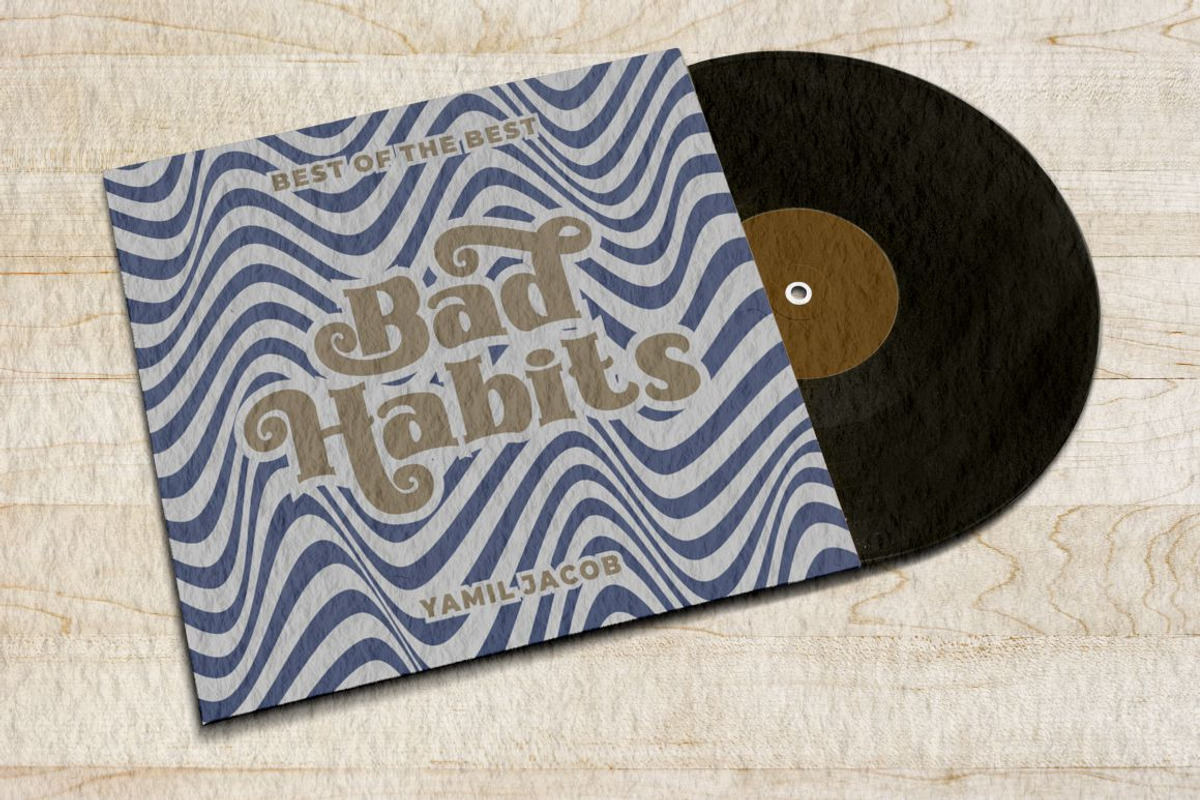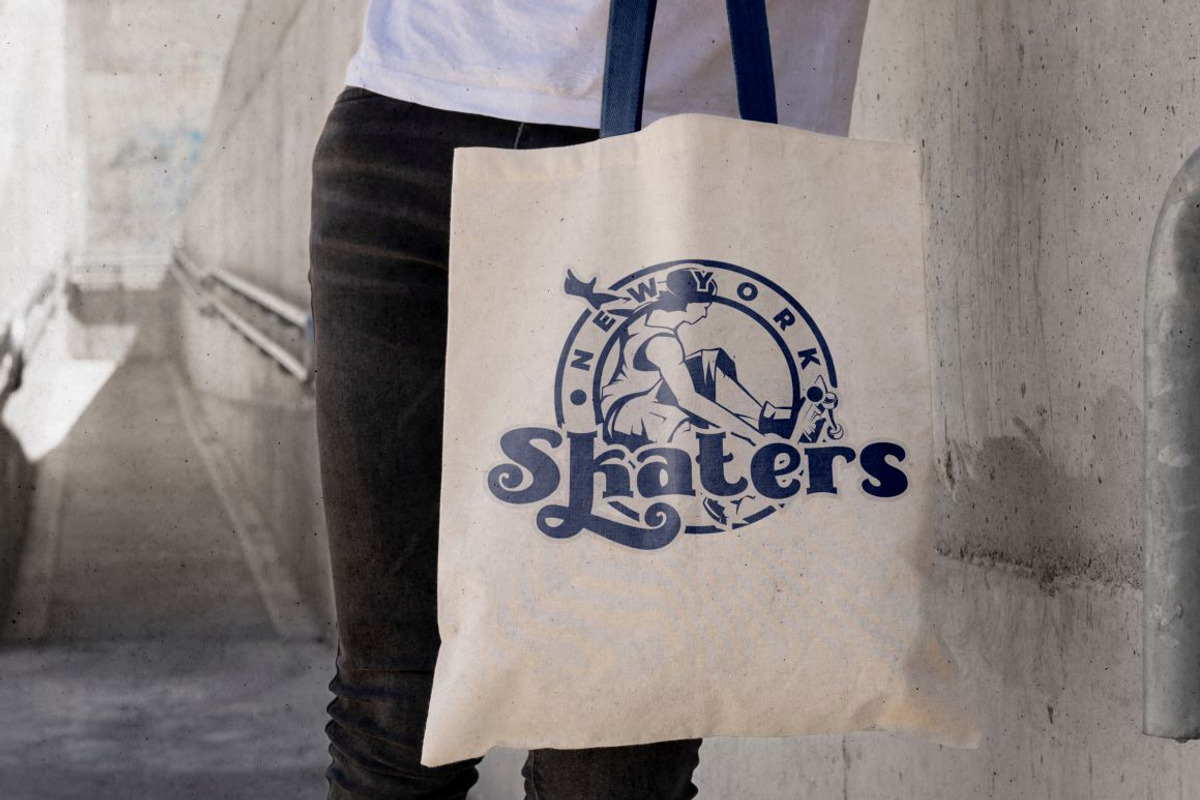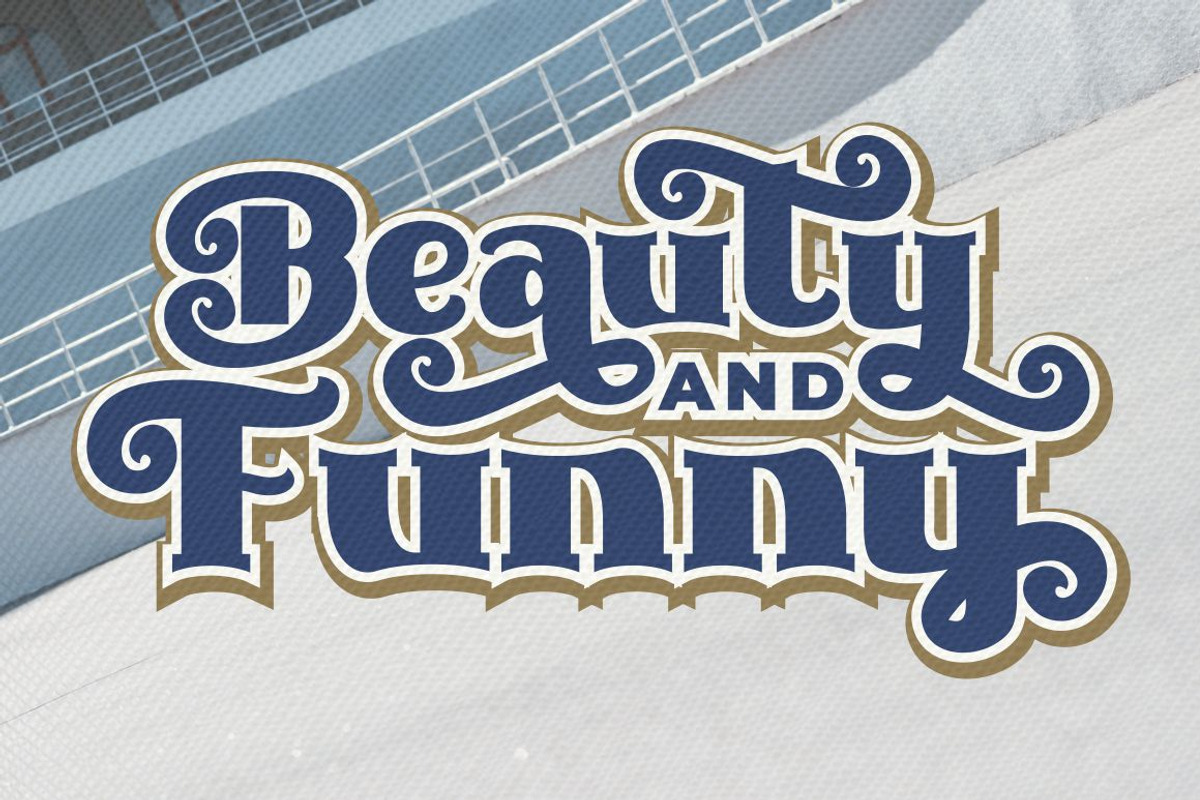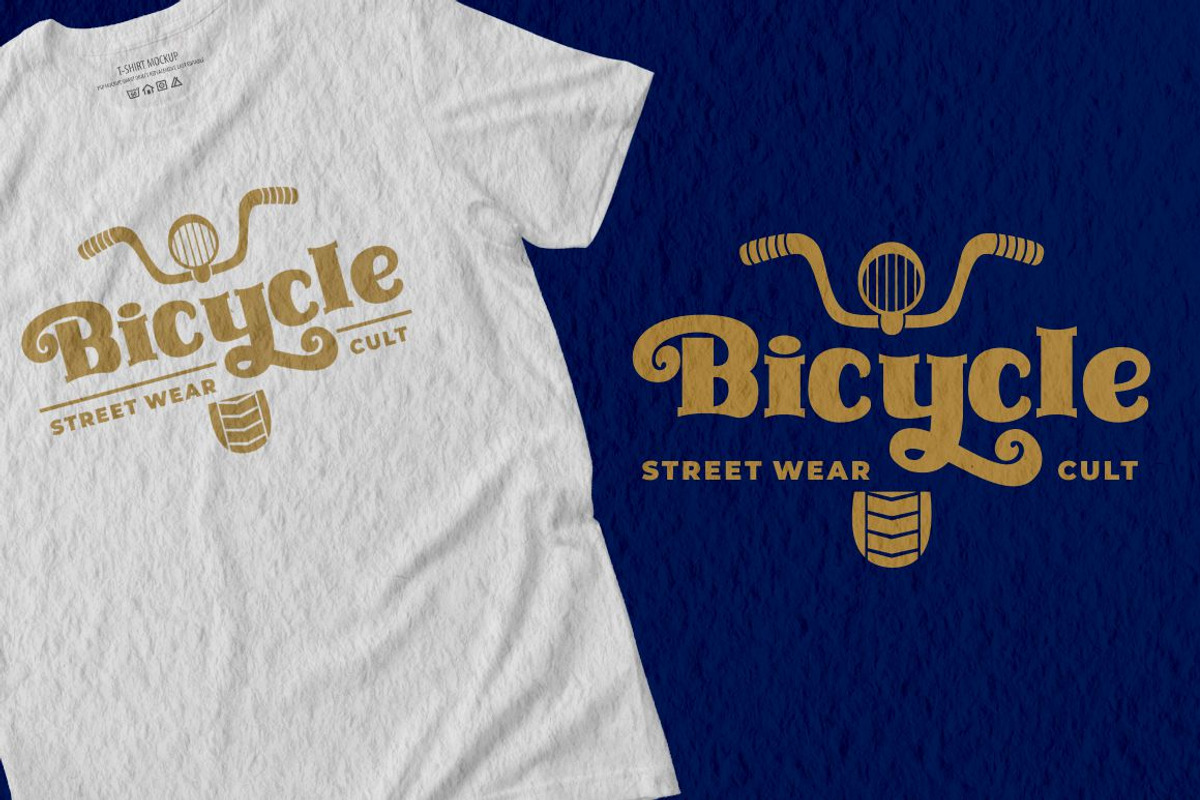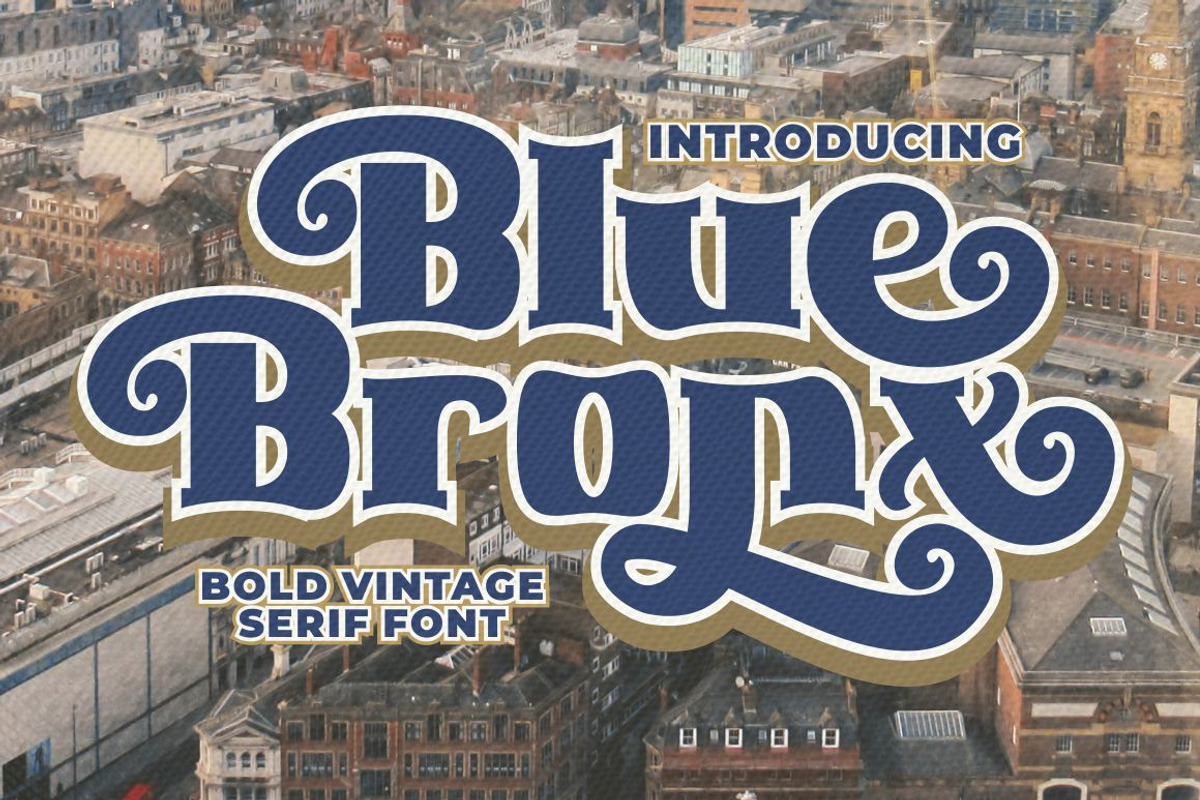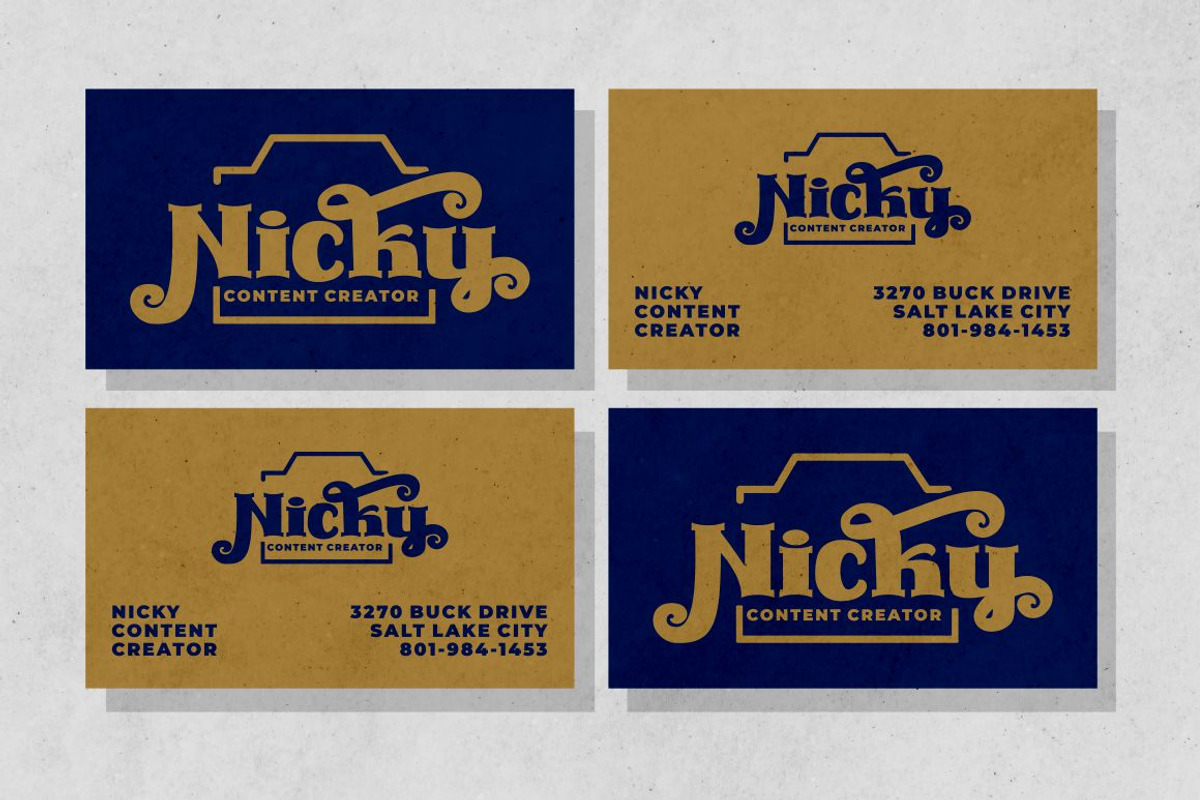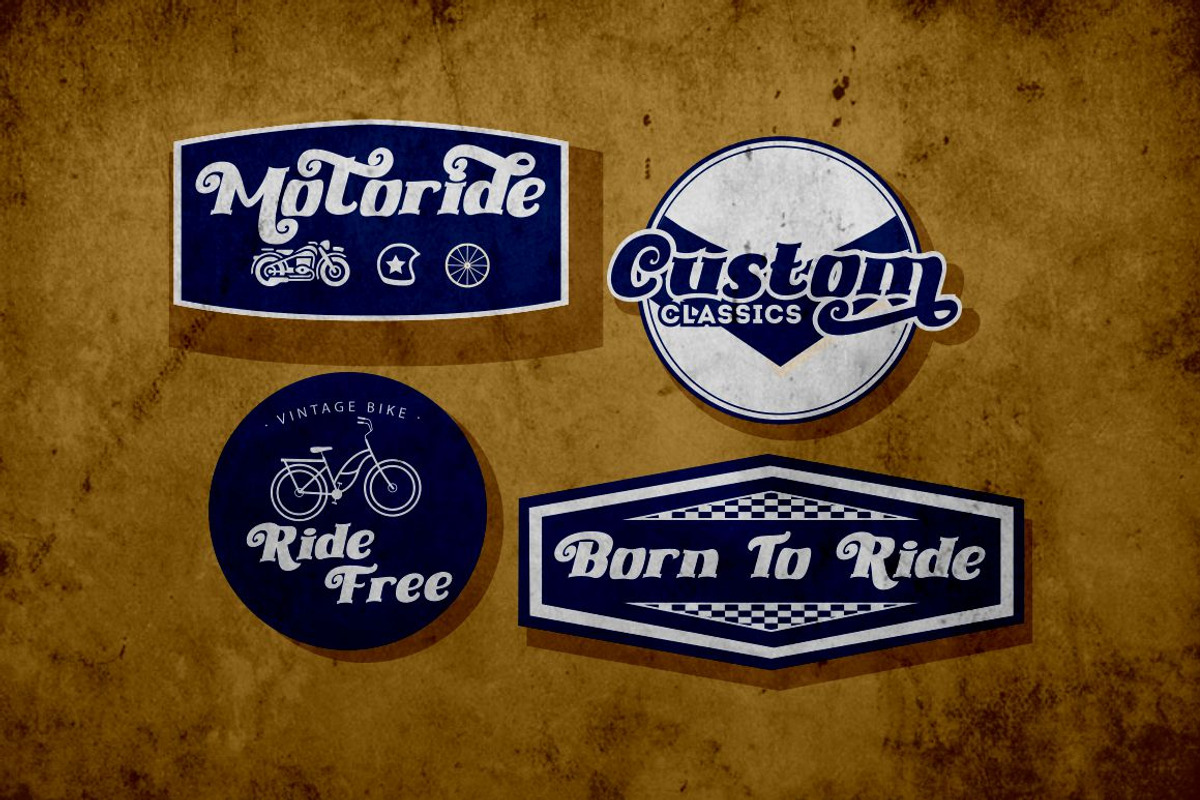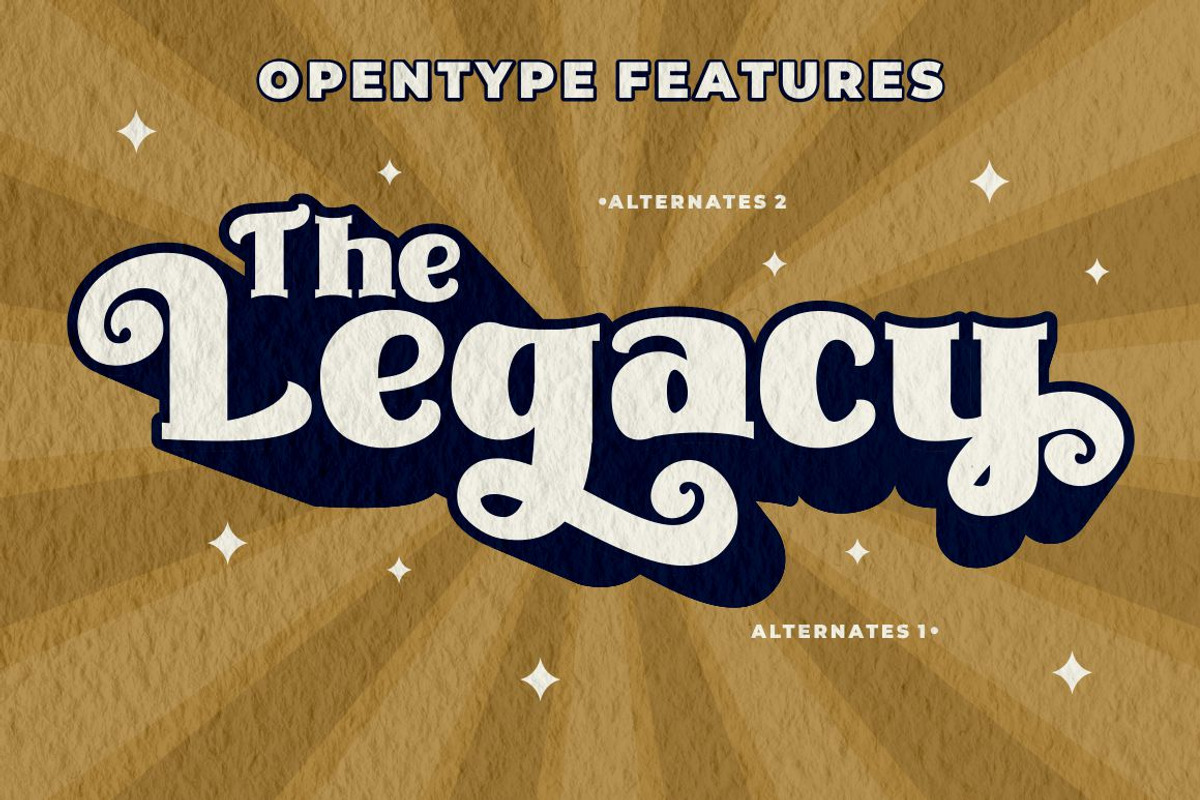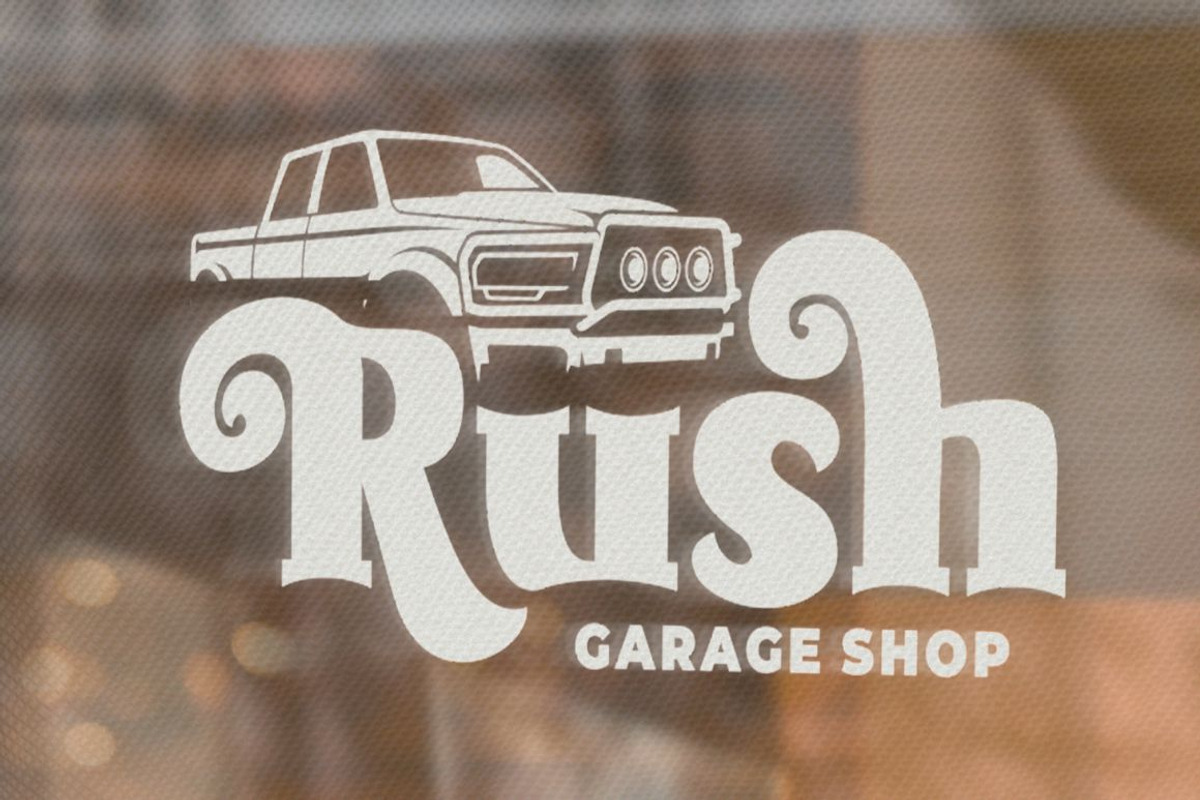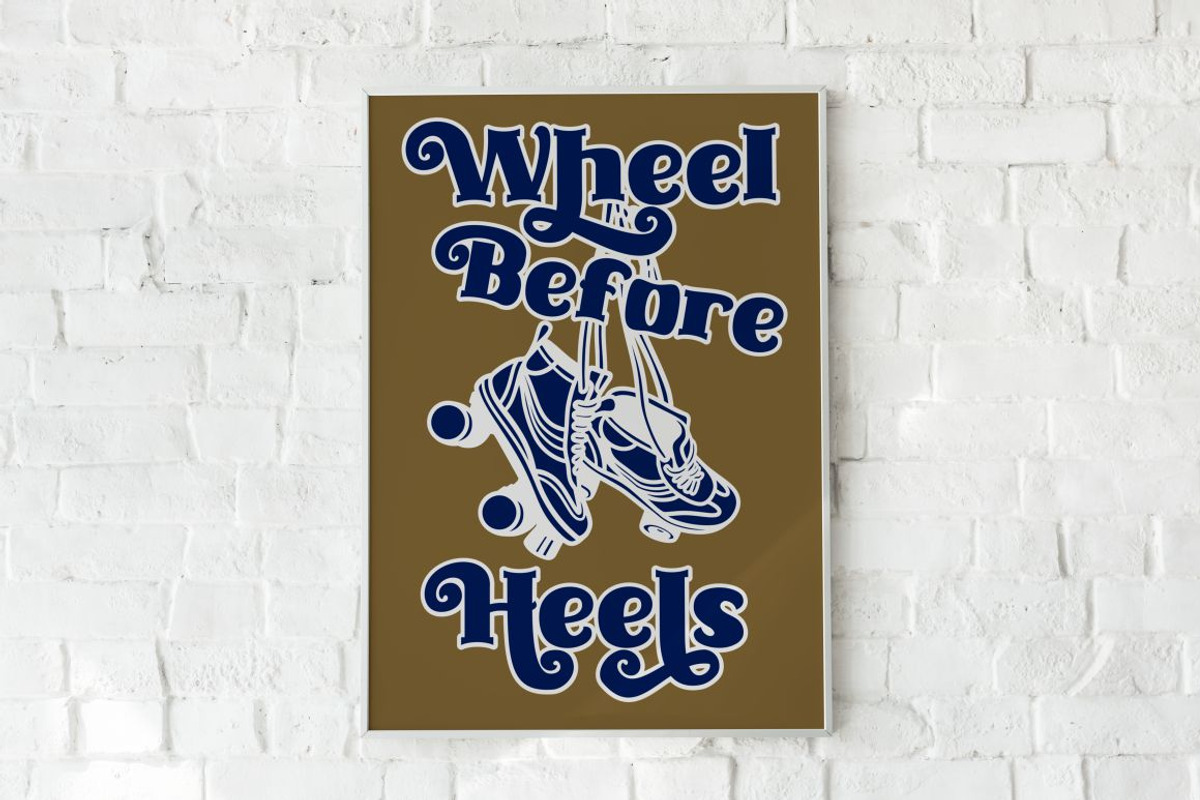
Blue Bronx - Bold Vintage Scipt Font
Blue Bronx - Bold Vintage Scipt Font. Blue Bronx is a bold vintage script font. Blue Bronx is font we combine vintage with luxury script font. Blue Bronx can be used in various projects with retro or vintage and luxury themes. Such as logos, branding, posters, packaging, book covers, clothes/apparel, quotes, titles and others. Blue Bronx come with clean and rough font version. Come with Opentype feature with a lot of alternates, its help you to make great lettering. This font is also support multi language.
Comes with feature :
- Opentype (Alternates And Ligatures)
- Number, Punctuation And Symbols
- Multilanguage Support.